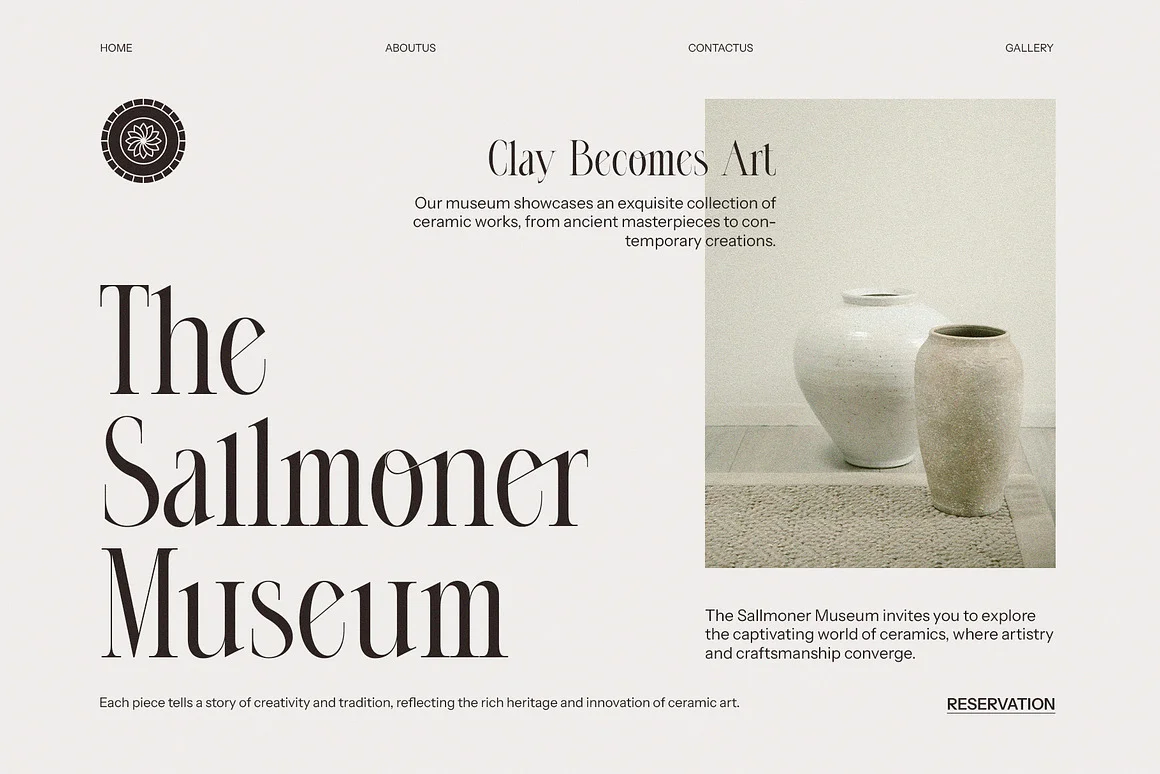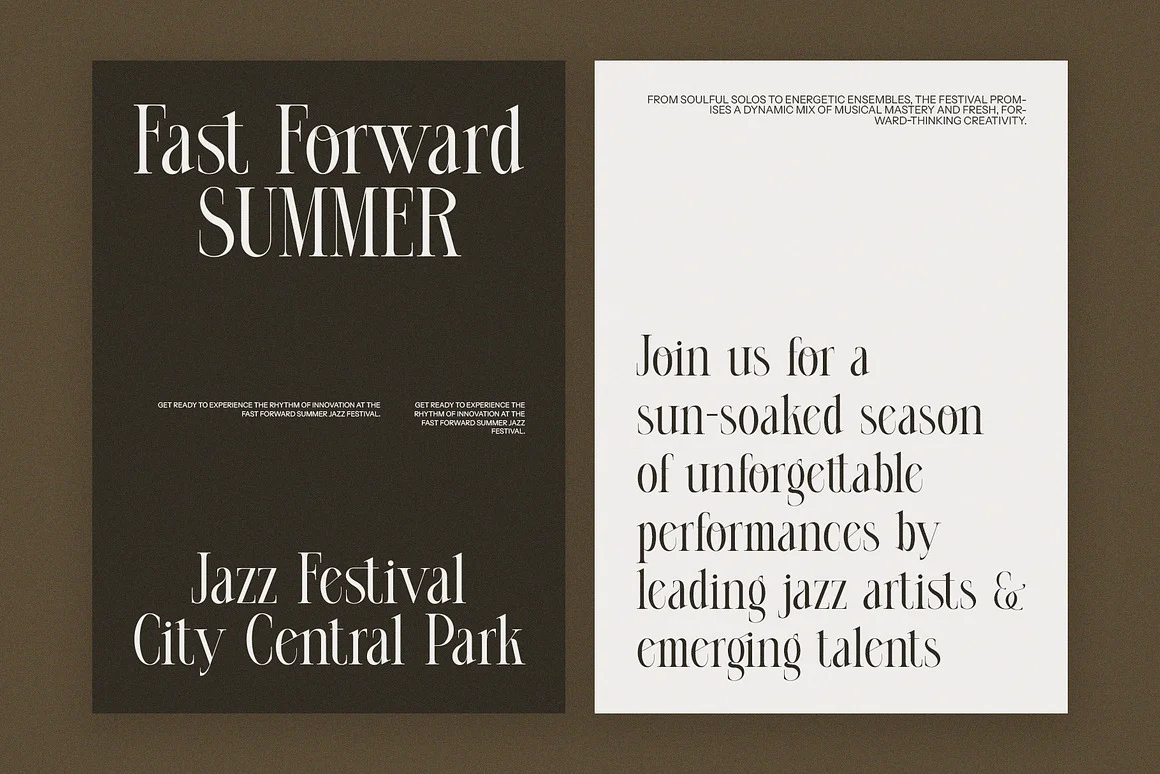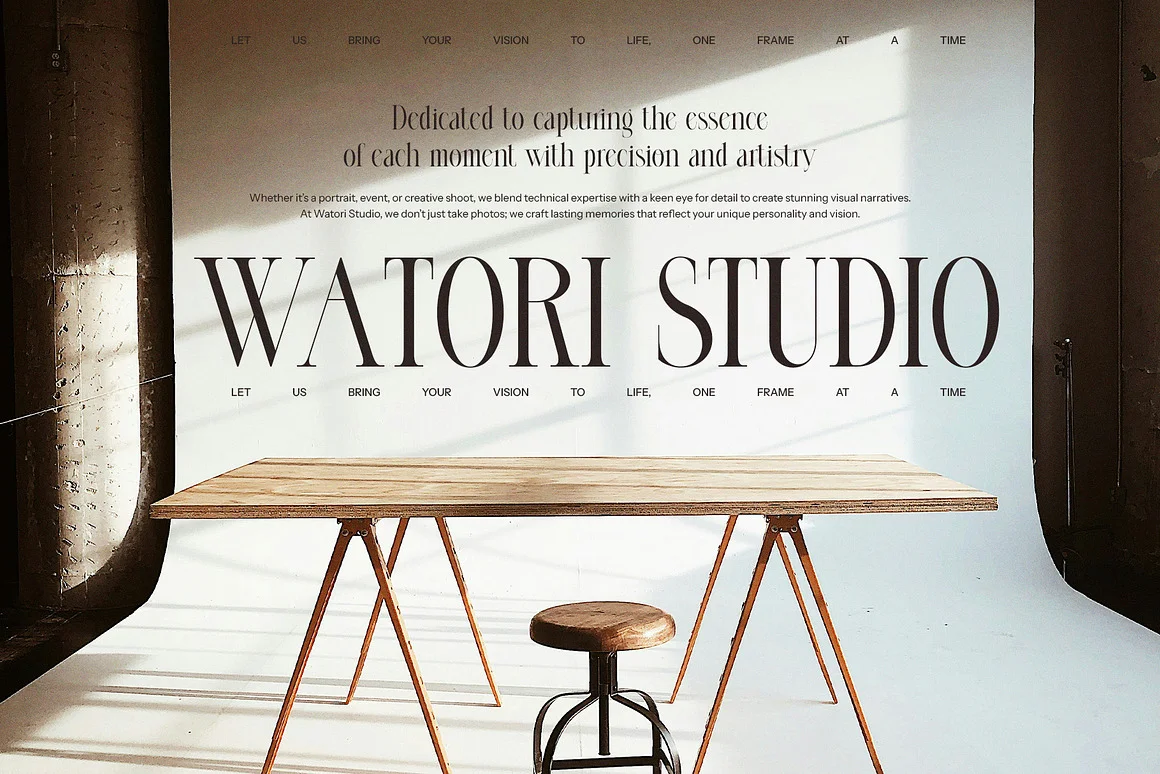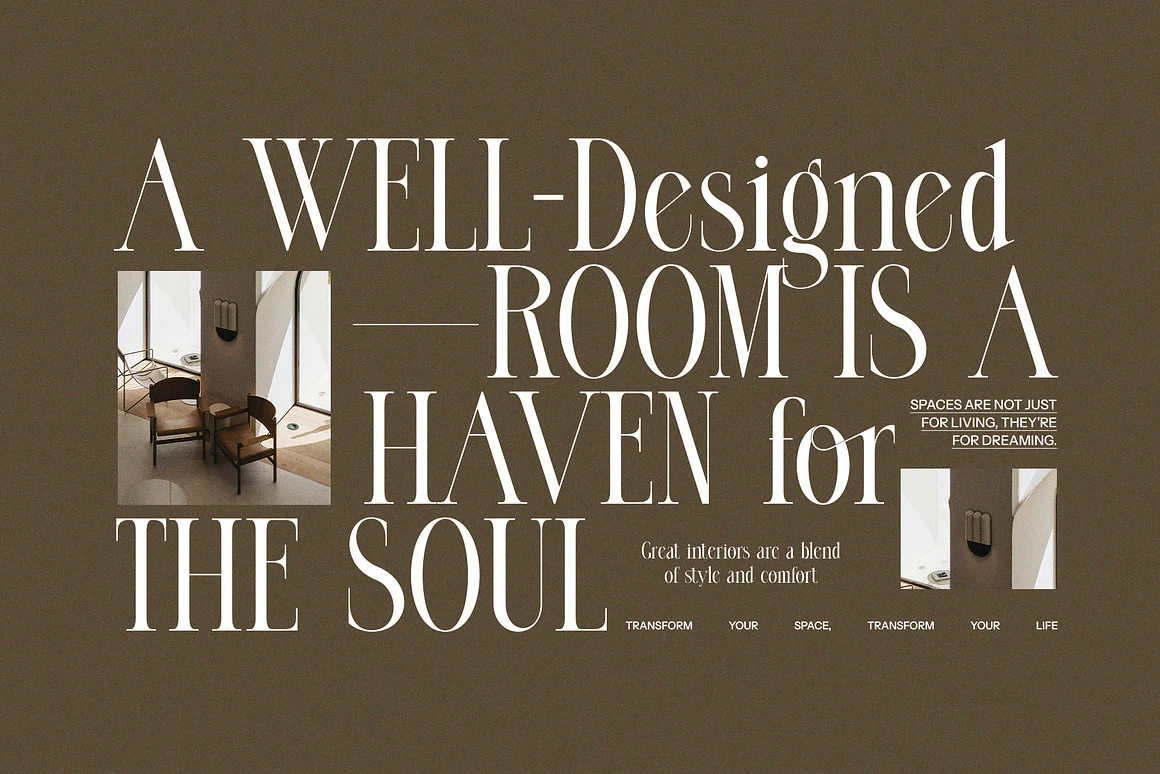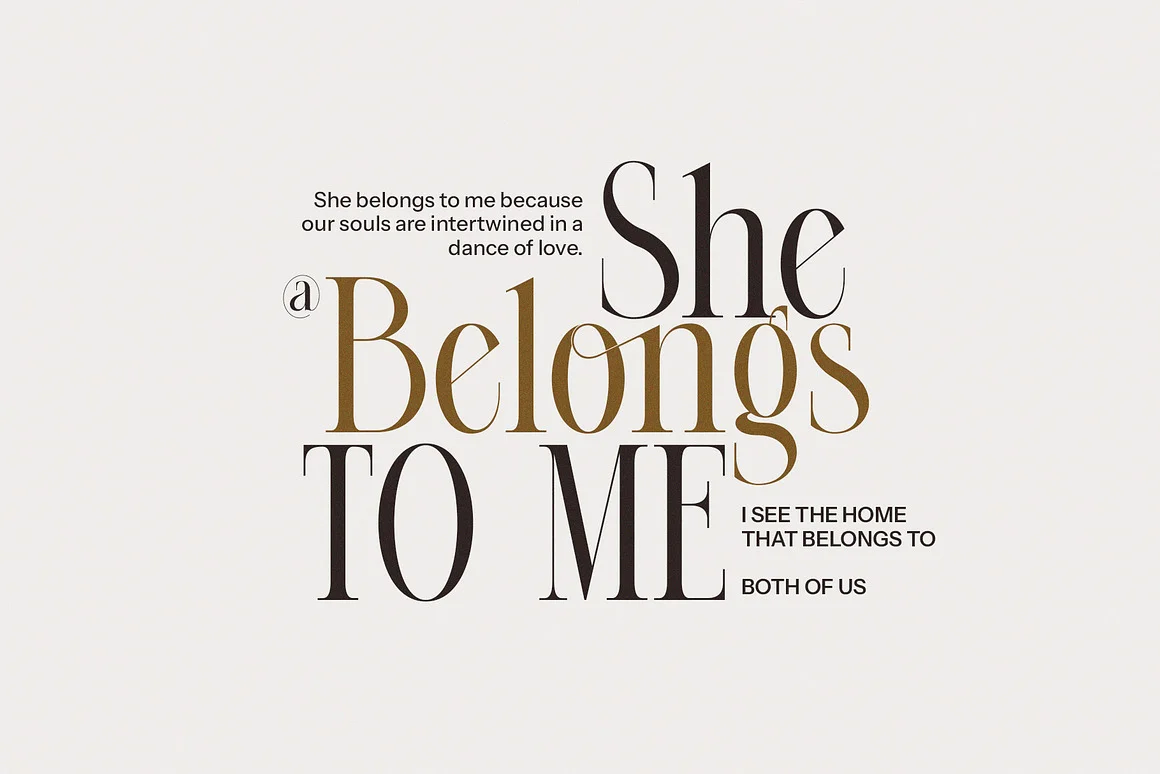
Raglien Modern Serif Font
Designers reaching for Raglien Modern Serif find a typeface that holds up across diverse media — print, web, and motion.
Common applications include business cards, posters, web headers, advertising materials, book covers, and corporate identity systems.